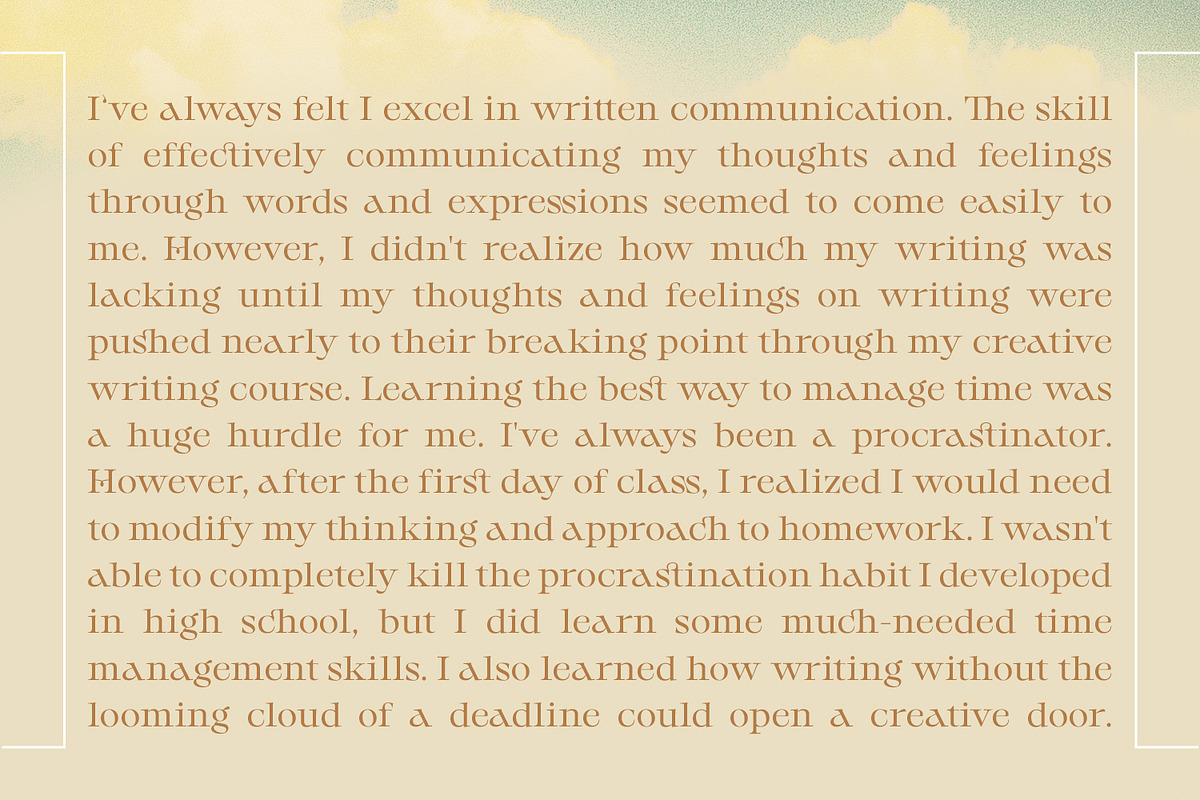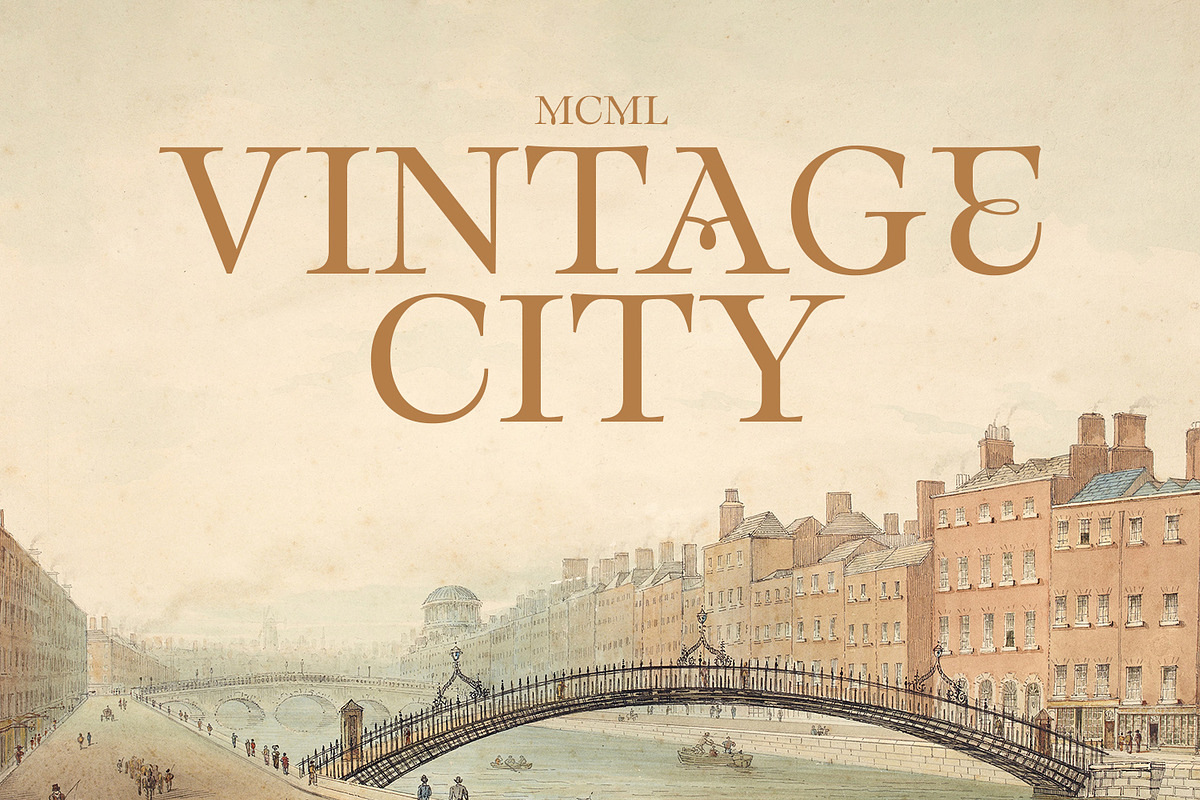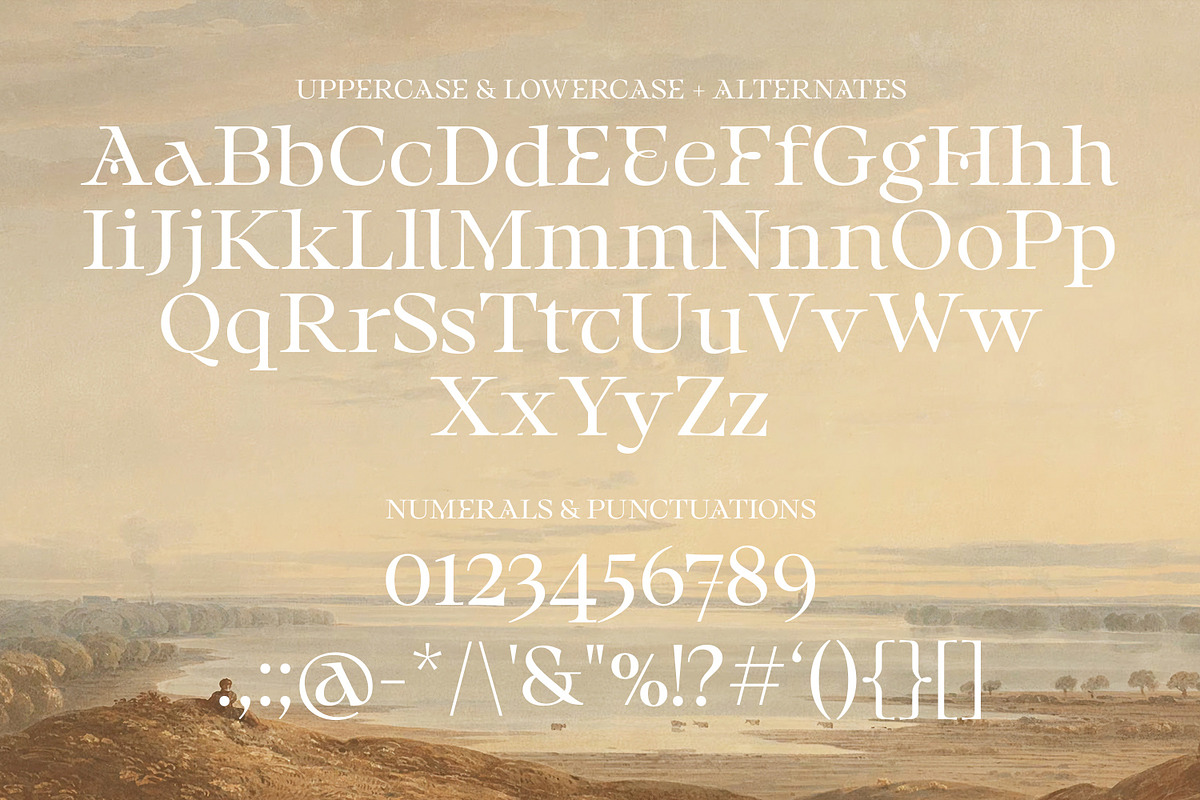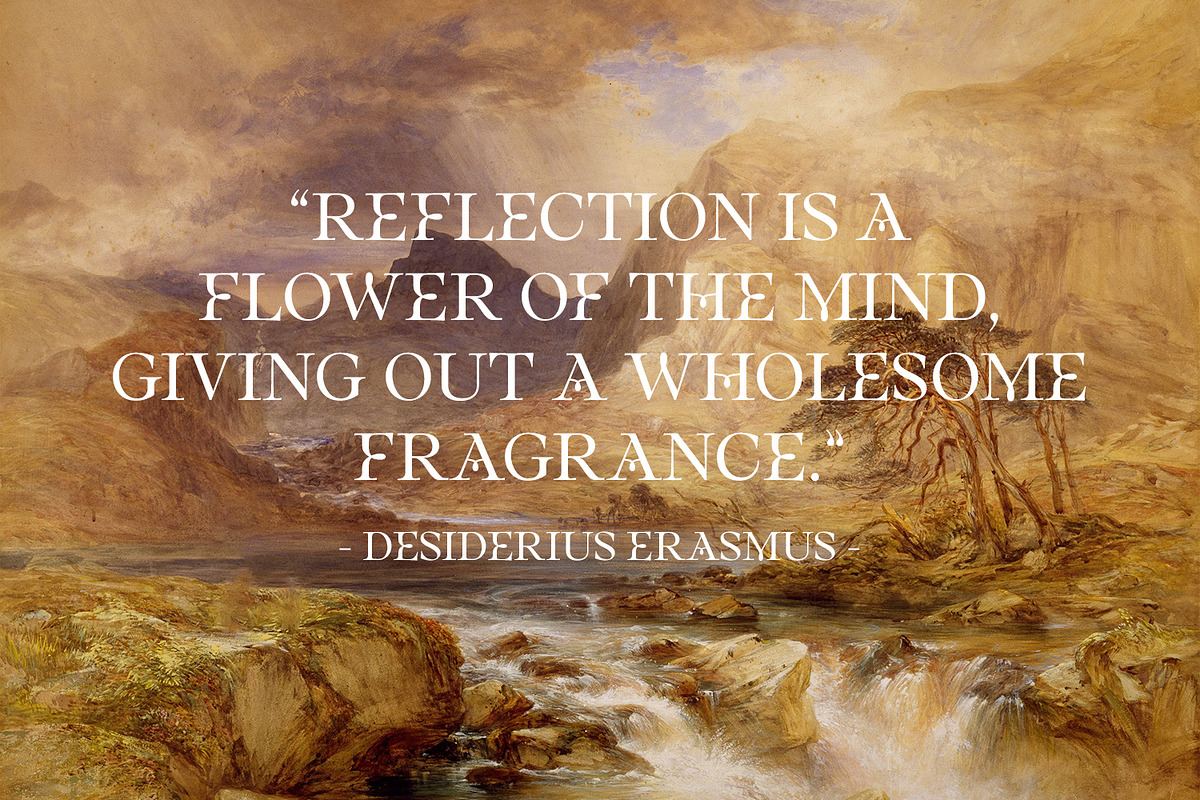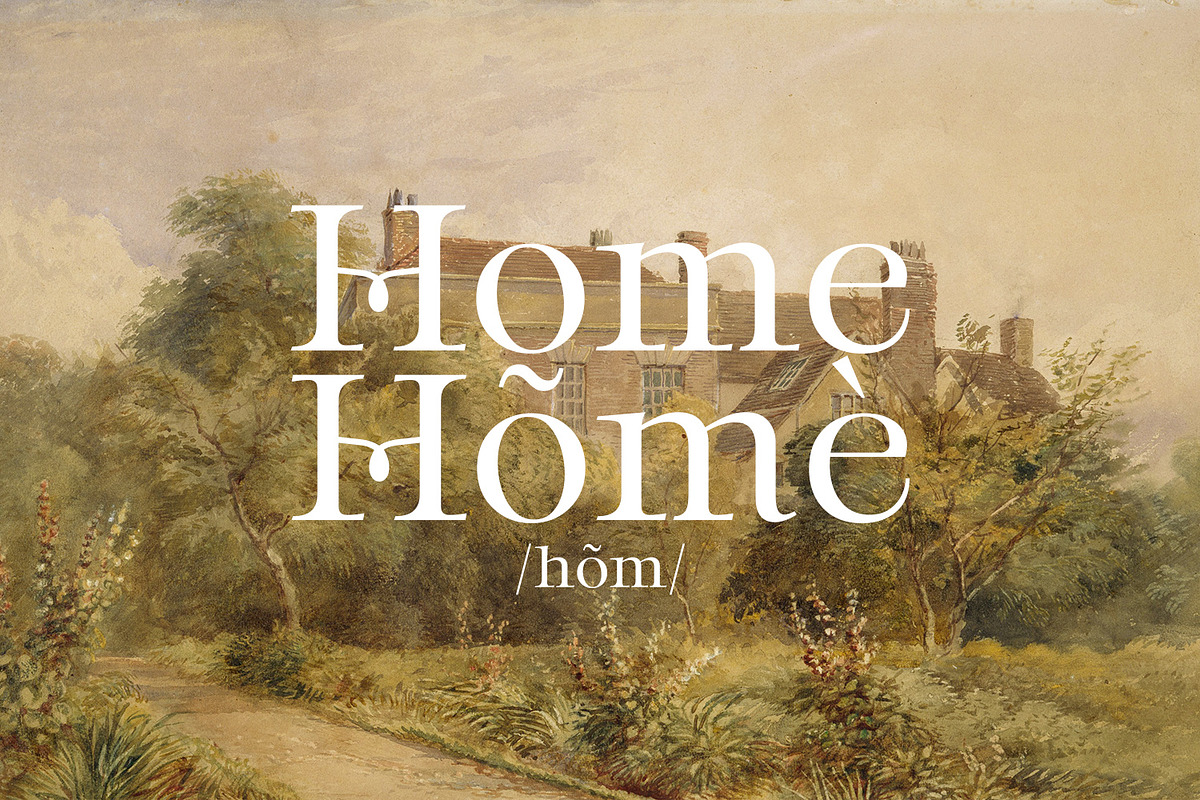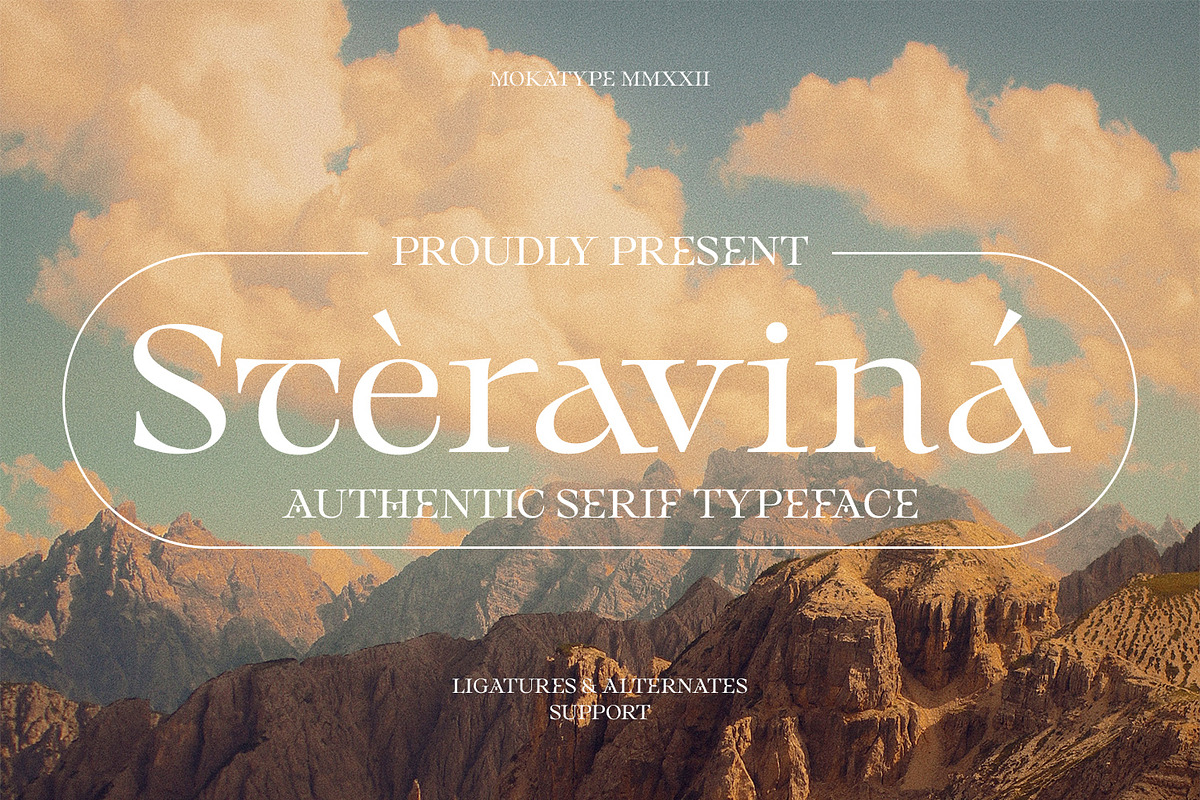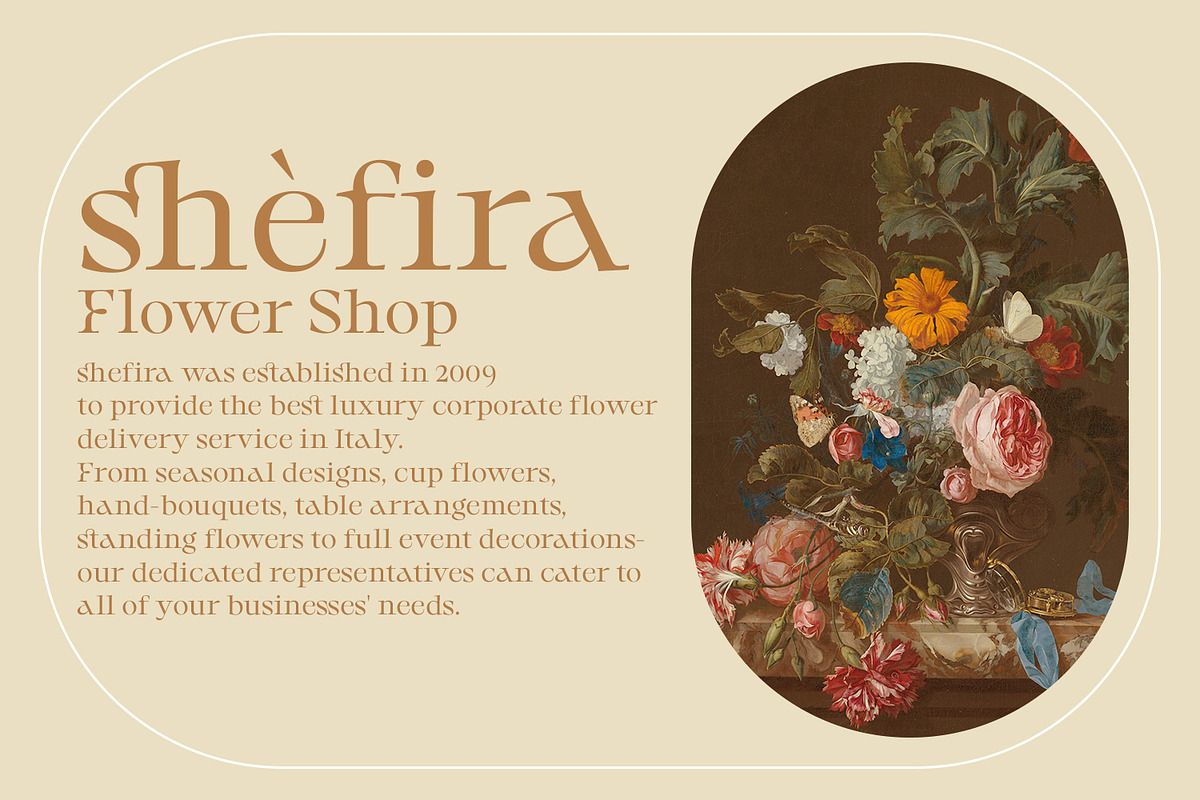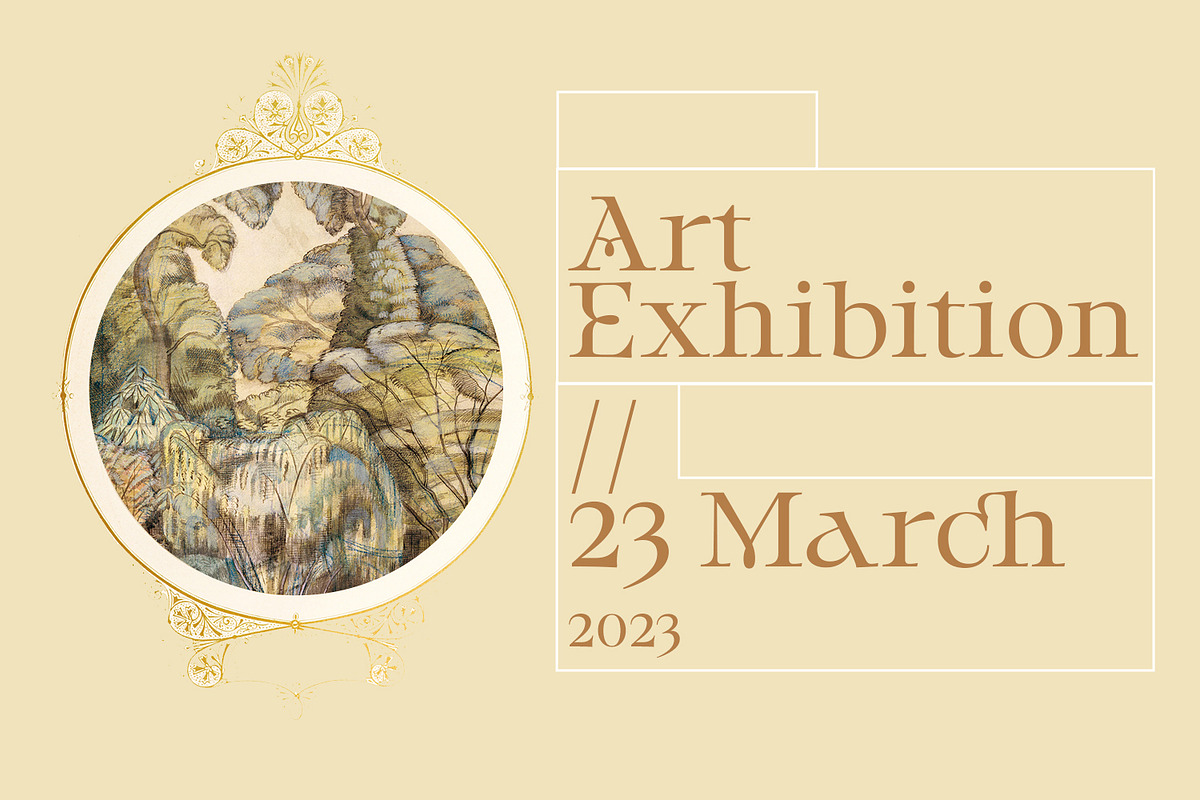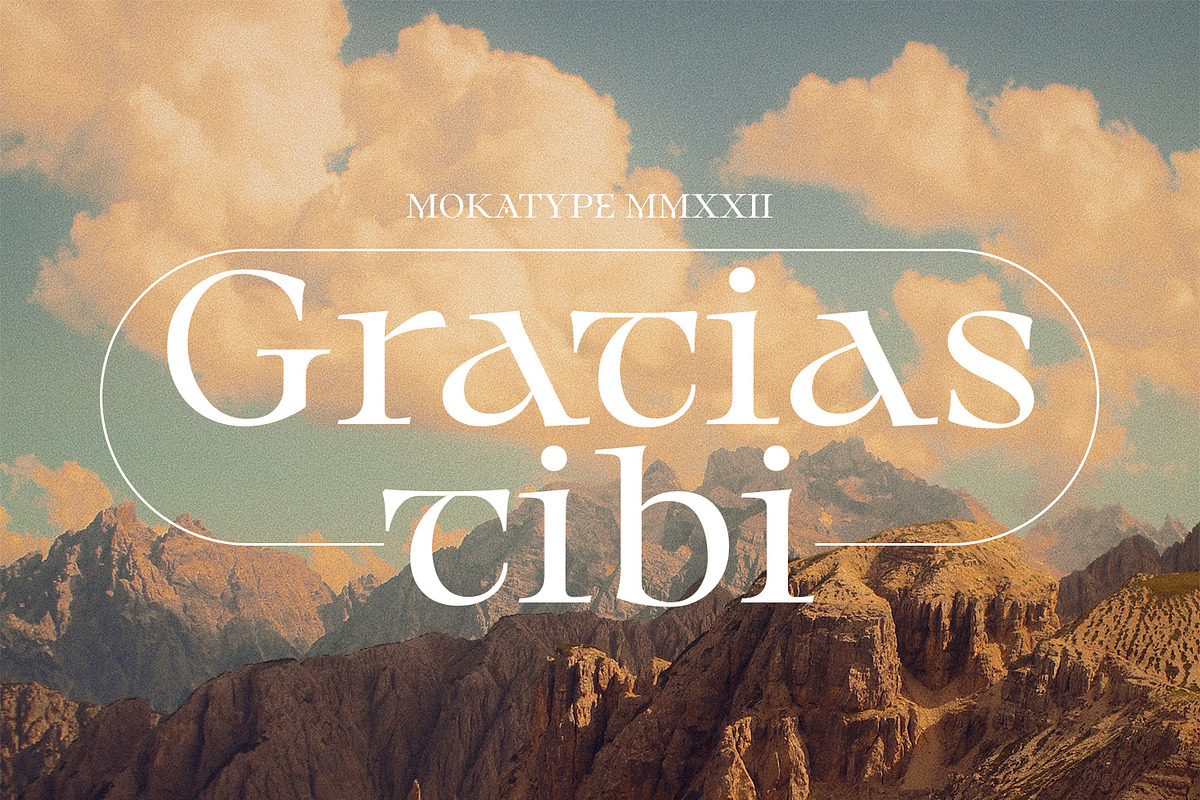
Steravina - Authentic Serif
Steravina is an elegant serif font, inspired by FS Renaissance font for serif form, it has vintage and traditional nuances, but it is still clean, aesthetic, and legible. Steravina Include several alternates and ligatures, suitable for any purpose design, long text or short text, posters, headlines, quotes, paragraph, interfaces, logotype, etc. This font is single-weight only, if you need multi-weight of this font, just tell us!
- Ligatures (Opentype features)